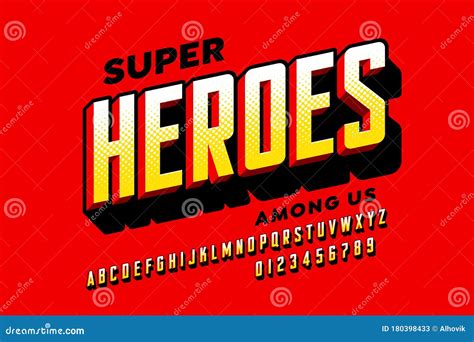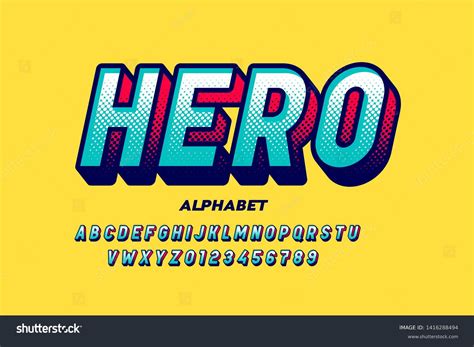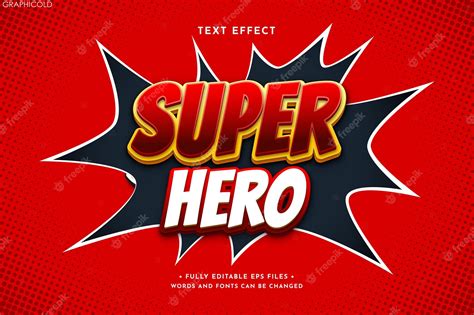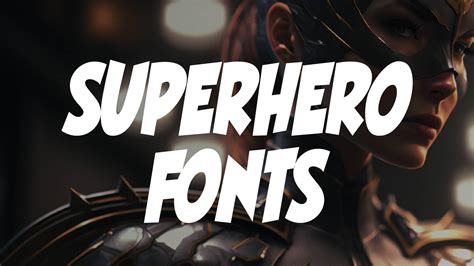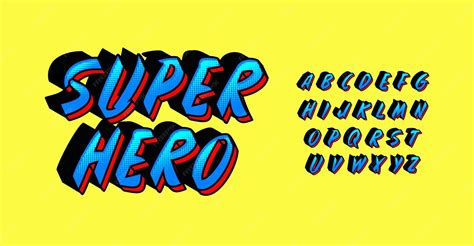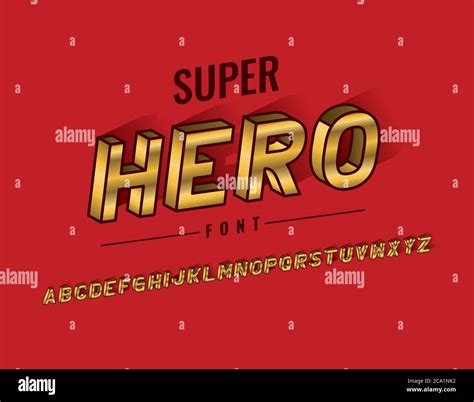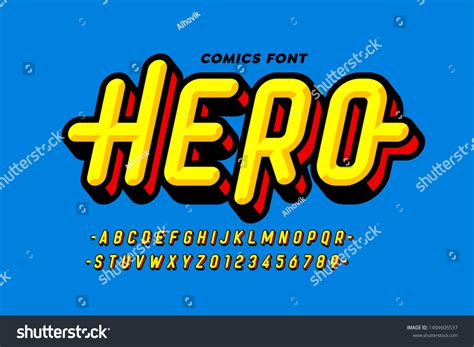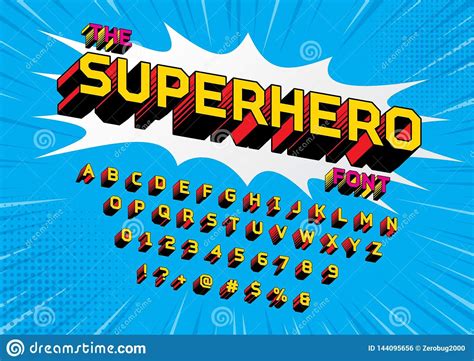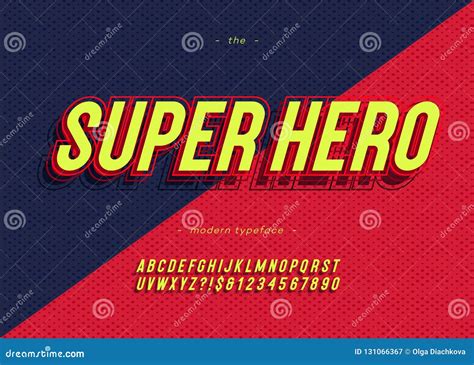
Super Hero Font
In the vast world of typography, fonts play a crucial role in conveying the tone and style of any design. Among the myriad of fonts available, the Super Hero Font stands out as a unique and powerful choice for designers looking to add a dynamic and bold touch to their projects. This font is not just about aesthetics; it embodies the spirit of heroes, making it a favorite among graphic designers, comic book artists, and anyone seeking to make a strong visual impact.
Understanding the Super Hero Font
The Super Hero Font is characterized by its bold, striking letters that often feature sharp edges and dynamic shapes. These characteristics make it ideal for headlines, posters, and any design element that requires immediate attention. The font's design often includes elements that evoke the imagery of superheroes, such as bold outlines, dramatic shadows, and sometimes even metallic textures.
One of the key features of the Super Hero Font is its versatility. It can be used in a variety of contexts, from comic book covers to movie posters, and even in digital media like websites and social media graphics. Its ability to adapt to different styles while maintaining its heroic essence makes it a go-to choice for many designers.
History and Evolution of the Super Hero Font
The origins of the Super Hero Font can be traced back to the early days of comic book art. As comic books gained popularity, artists and designers began to experiment with different fonts to create a sense of heroism and adventure. Over time, these fonts evolved, incorporating more dynamic and bold elements to better represent the heroic characters they were meant to depict.
Today, the Super Hero Font has evolved into a digital asset, available in various formats and styles. Designers can choose from a range of Super Hero Fonts, each with its unique twist, to suit their specific needs. Whether it's a classic, retro look or a modern, sleek design, there's a Super Hero Font for every project.
Applications of the Super Hero Font
The Super Hero Font is incredibly versatile and can be used in a wide range of applications. Here are some of the most common uses:
• Comic Books and Graphic Novels: The Super Hero Font is a staple in the comic book industry. It's used for titles, speech bubbles, and other text elements to create a sense of excitement and adventure.
• Movie Posters and Trailers: The bold and dynamic nature of the Super Hero Font makes it perfect for movie posters and trailers, especially for superhero films. It grabs attention and sets the tone for the action-packed content.
• Video Games: In the world of video games, the Super Hero Font is often used for game titles, character names, and in-game text to enhance the heroic and adventurous theme.
• Digital Media: Websites, social media graphics, and digital advertisements often use the Super Hero Font to create eye-catching headlines and banners. Its bold design helps to stand out in the crowded digital landscape.
• Merchandise: From t-shirts to posters, the Super Hero Font is a popular choice for merchandise related to superhero franchises. It adds a touch of authenticity and excitement to the products.
Choosing the Right Super Hero Font
With so many variations of the Super Hero Font available, choosing the right one for your project can be a daunting task. Here are some factors to consider:
• Style and Aesthetic: Consider the overall style and aesthetic of your project. If you're going for a classic, retro look, a Super Hero Font with a vintage feel might be the best choice. For a more modern and sleek design, opt for a font with clean lines and a contemporary edge.
• Readability: While the Super Hero Font is bold and dynamic, it's important to ensure that it remains readable. Choose a font that is clear and easy to read, especially if it will be used for larger blocks of text.
• Versatility: Look for a Super Hero Font that can be used in various contexts. A versatile font will save you time and effort, as you won't need to switch fonts for different parts of your project.
• Compatibility: Ensure that the Super Hero Font you choose is compatible with the software and platforms you will be using. Some fonts may not work well with certain design tools or digital media formats.
Here is a table to help you compare some popular Super Hero Fonts and their key features:
Font Name Style Readability Versatility Compatibility
Heroic Bold Classic, Retro High Medium Good
Dynamic Hero Modern, Sleek High High Excellent
Superhero Classic Vintage, Nostalgic Medium Low Good
Heroic Modern Contemporary, Bold High High Excellent
When selecting a Super Hero Font, it's also important to consider the overall design and branding of your project. The font should complement the other design elements and enhance the overall aesthetic. Experiment with different fonts and see which one best fits your vision.